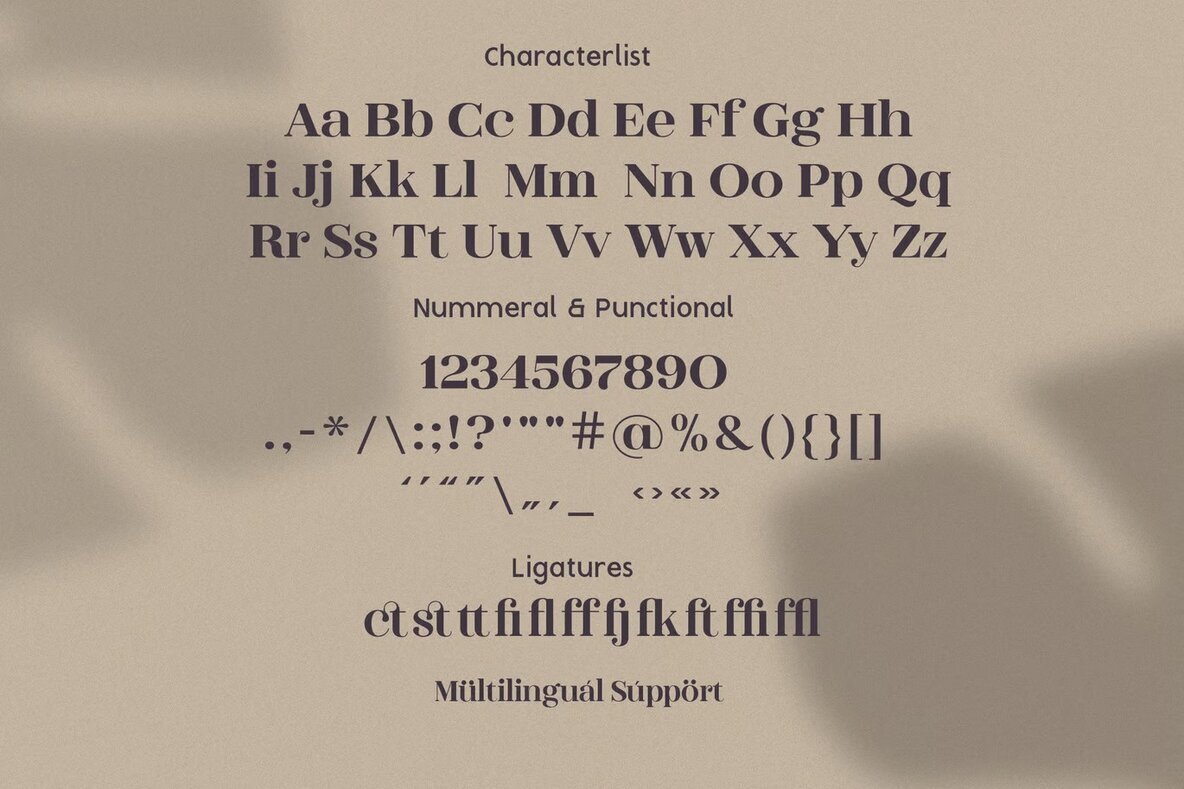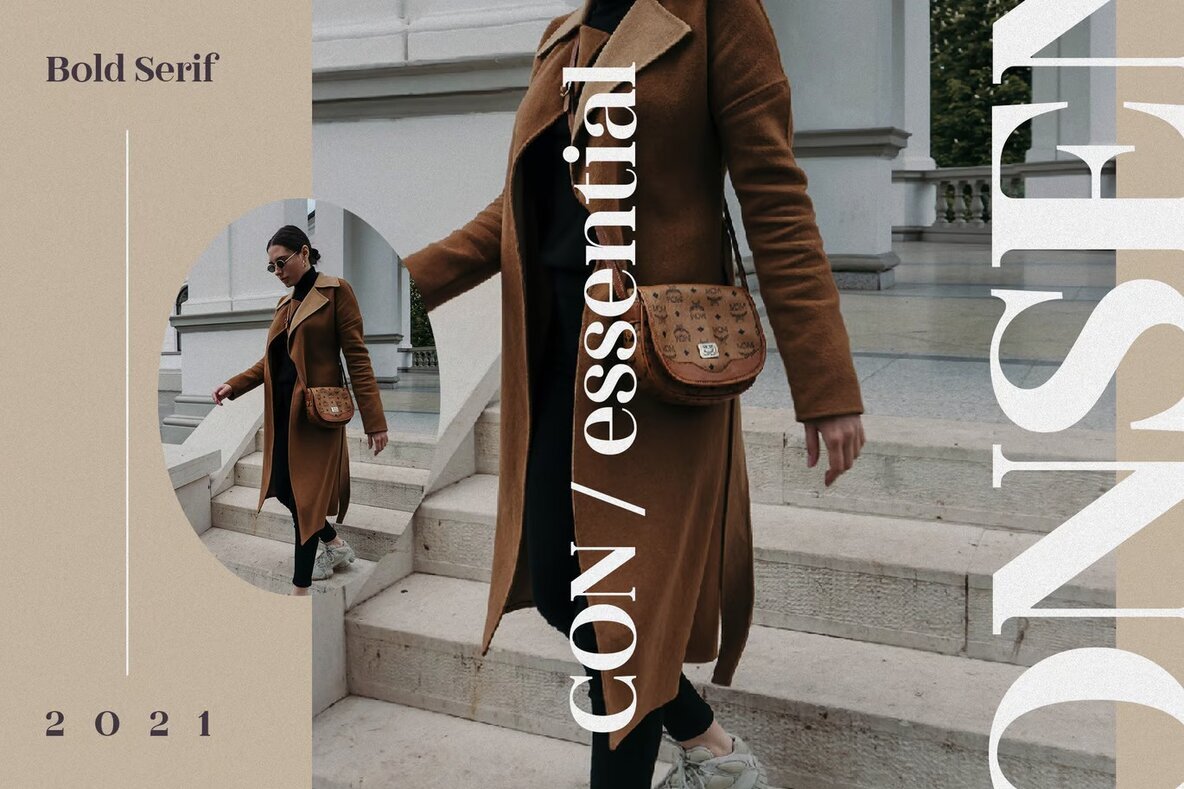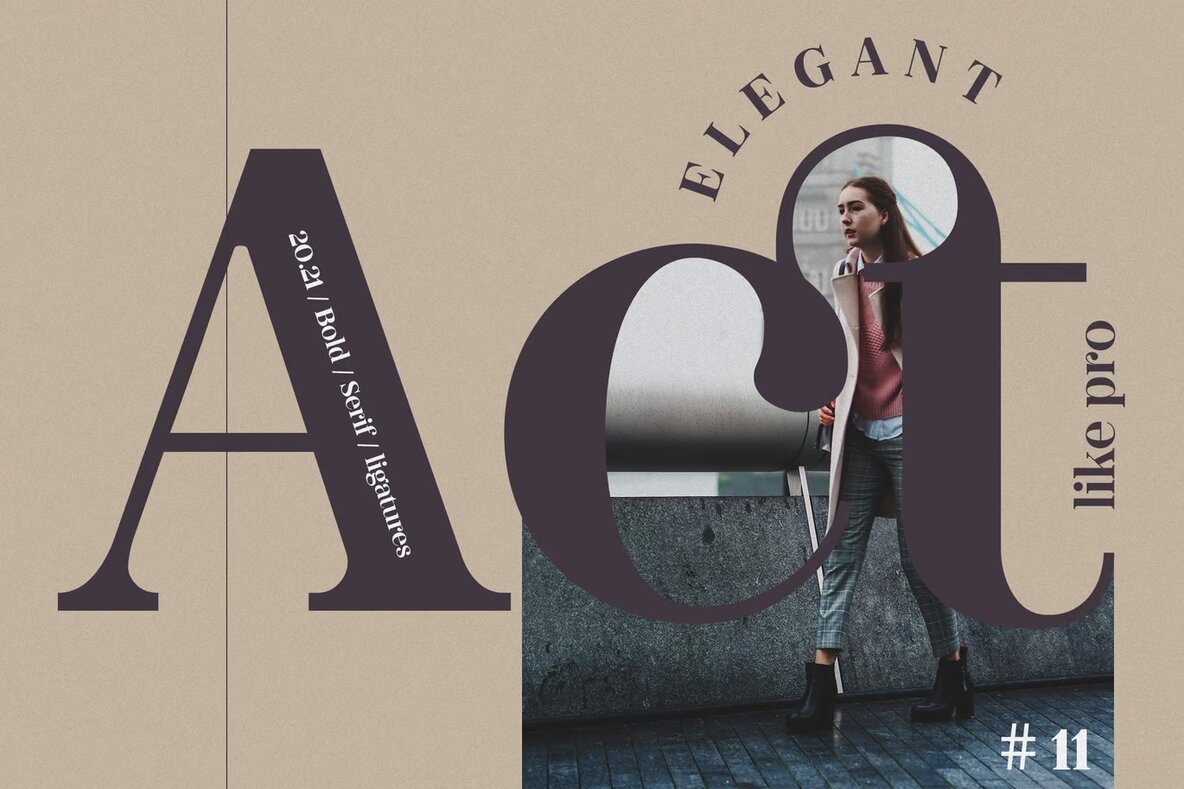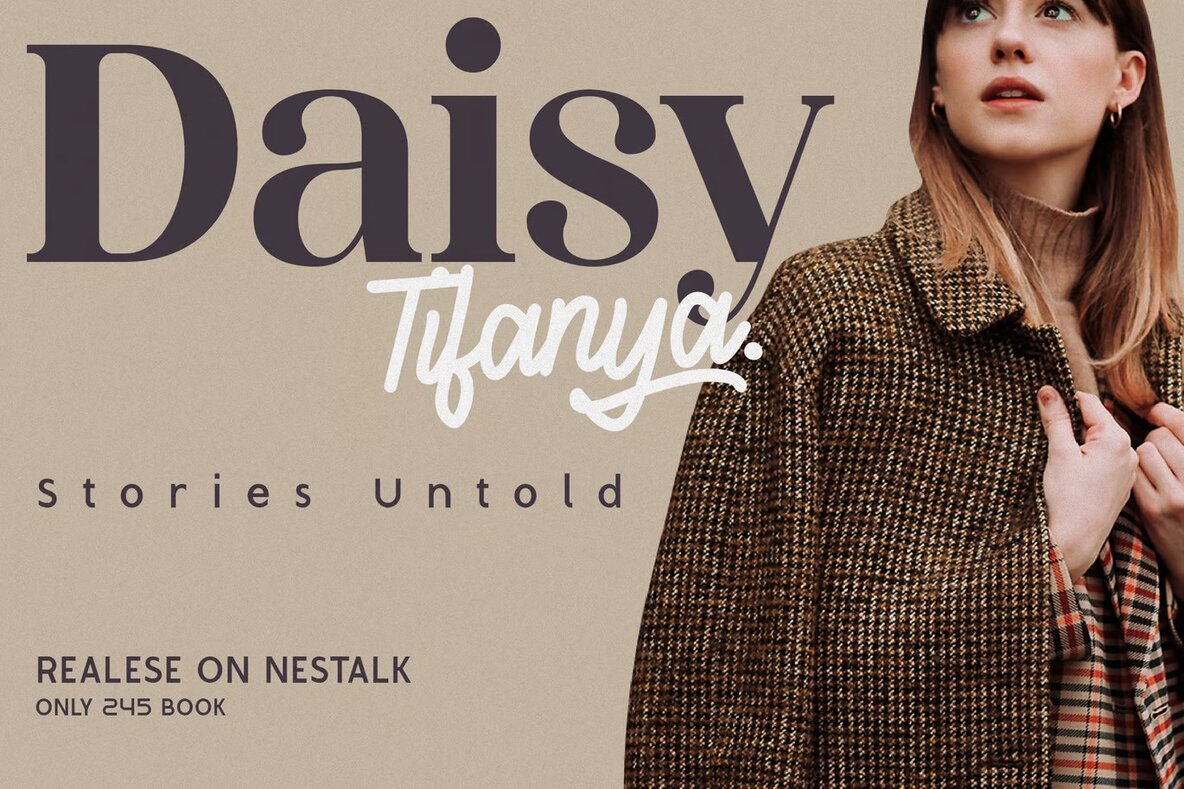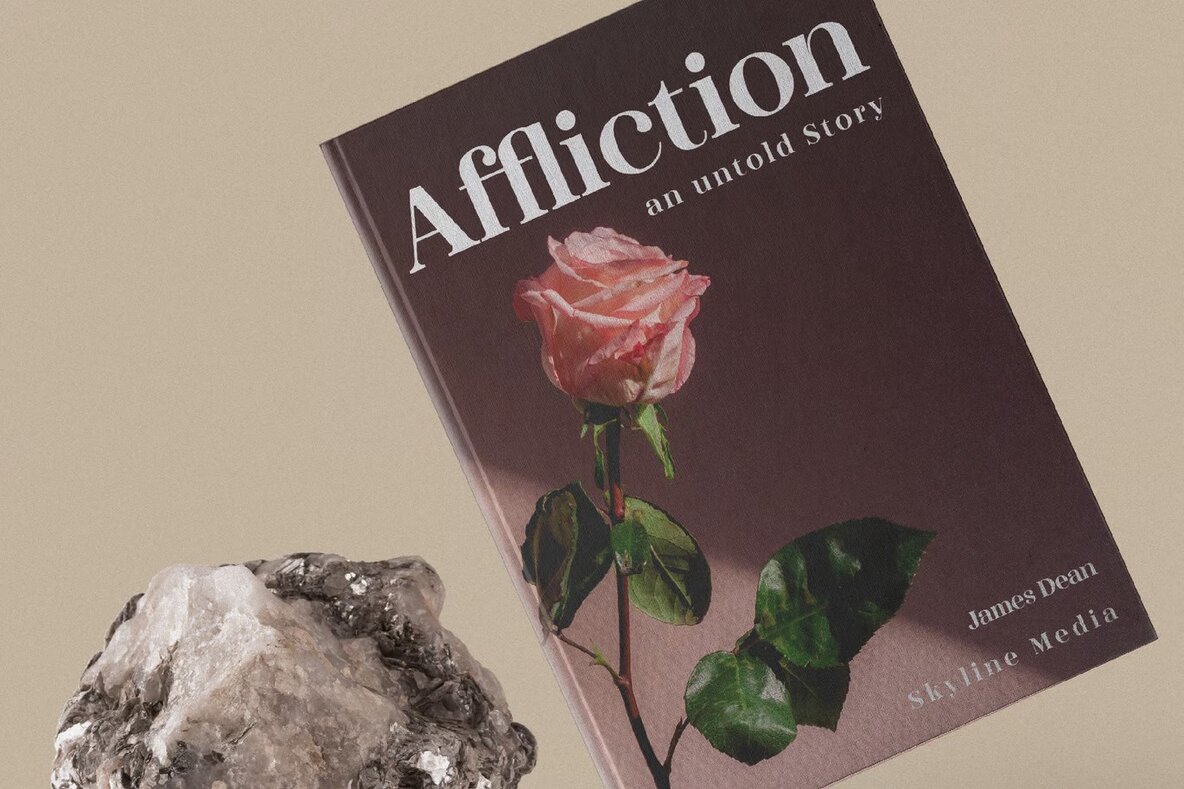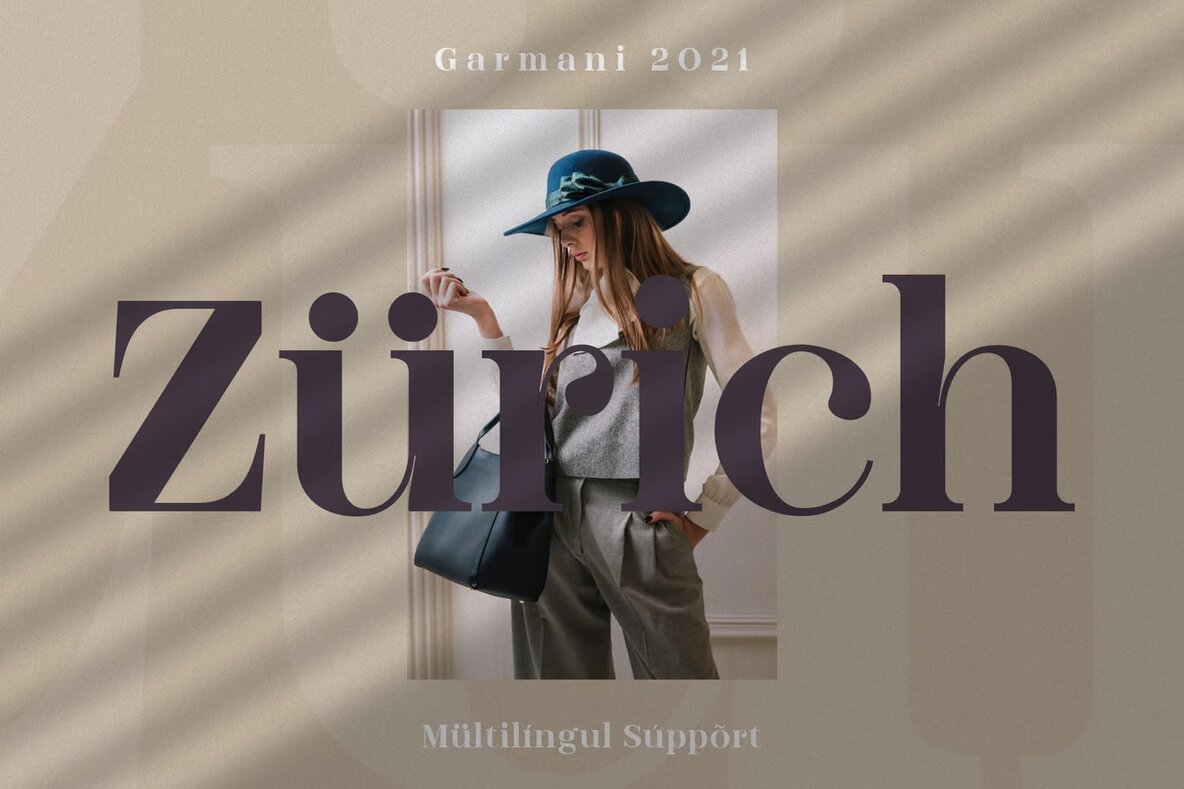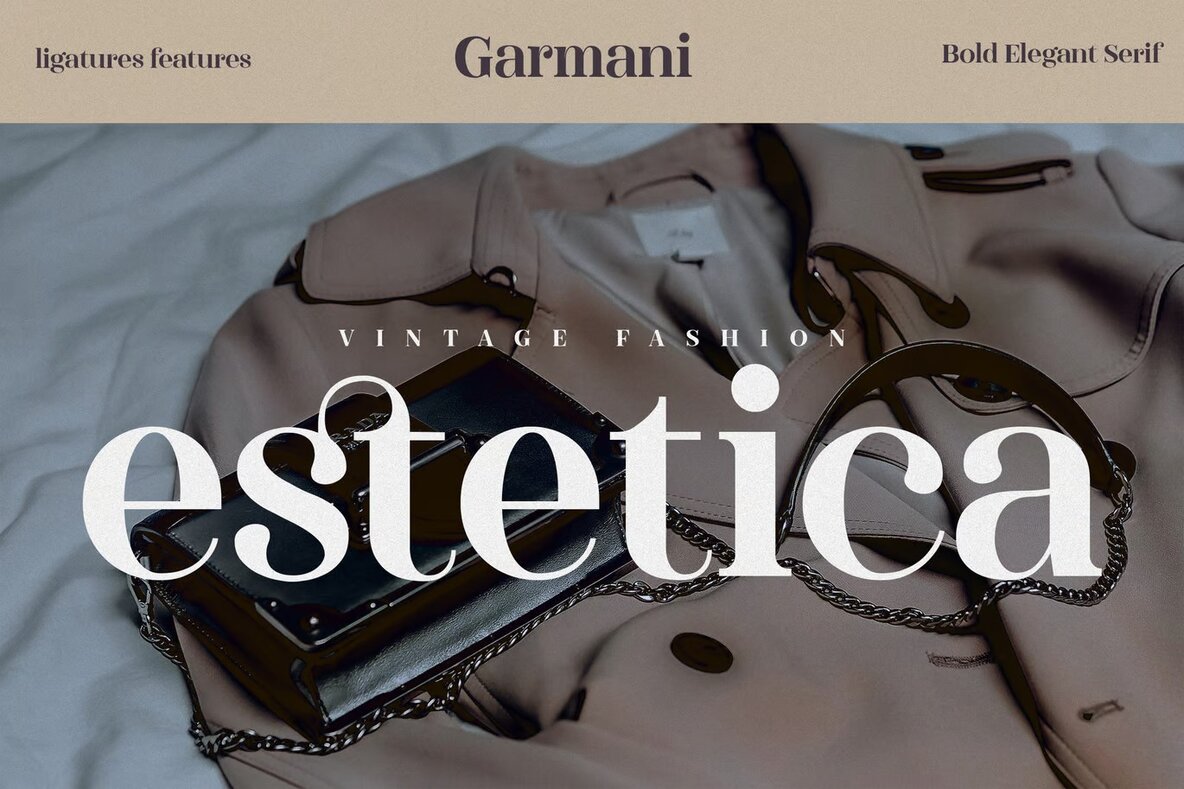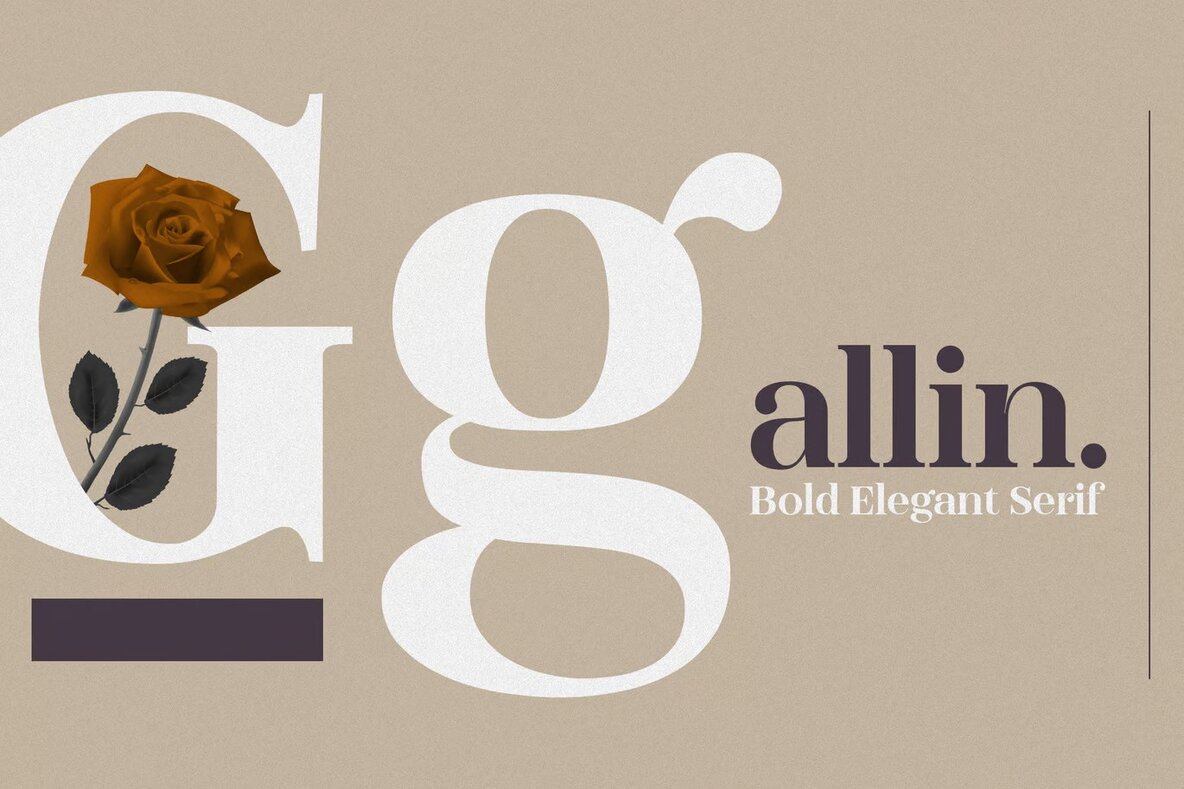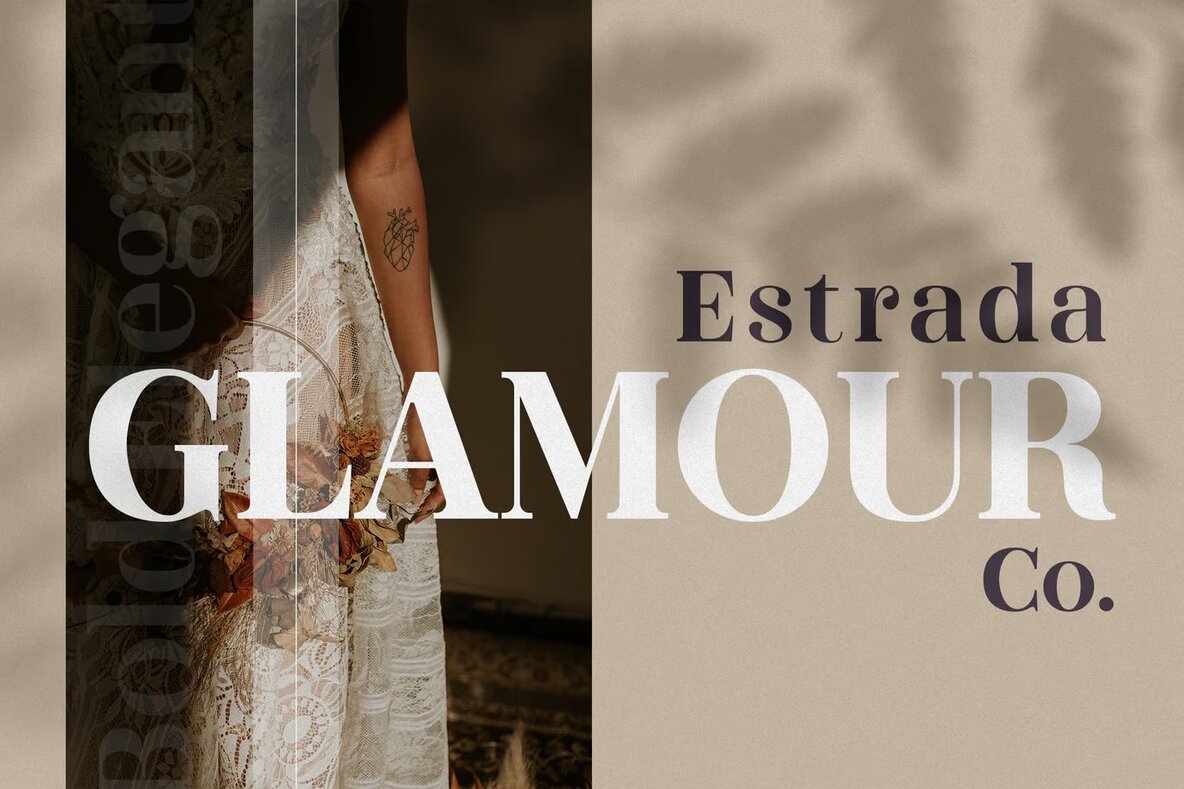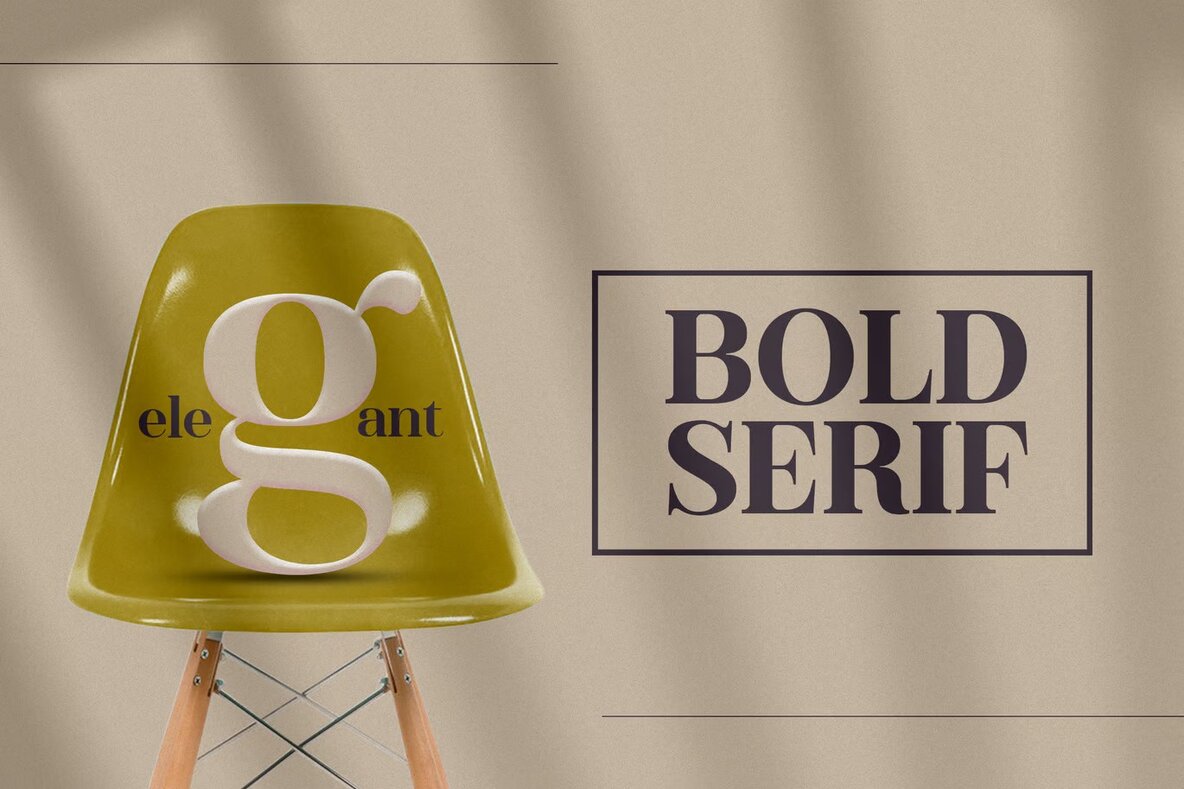
Garmani Font
Garmani Elegant Serif is a sophisticated font ideal for various projects demanding a touch of elegance and class. This romantic serif display font is versatile and suits luxury logos, branding endeavors, and classy editorial designs. It's an excellent choice for woman-oriented magazines, cosmetic brands, and fashion promotions. Garmani can also enhance art gallery branding, museum displays, and architectural histories, making it fit for boutique branding and stylish stationery designs.
Its refined aesthetic is well-suited for modern advertising designs, card invitations, art quotes, and home decor. Whether you're designing a book cover or crafting a title for special events, Garmani offers the perfect balance of beauty and formality. This font's ability to blend with various design elements ensures its place in both contemporary and traditional projects.